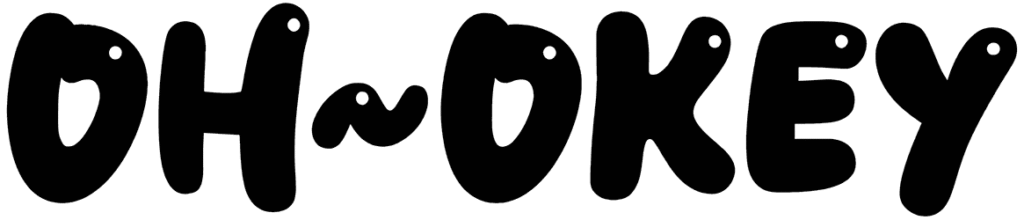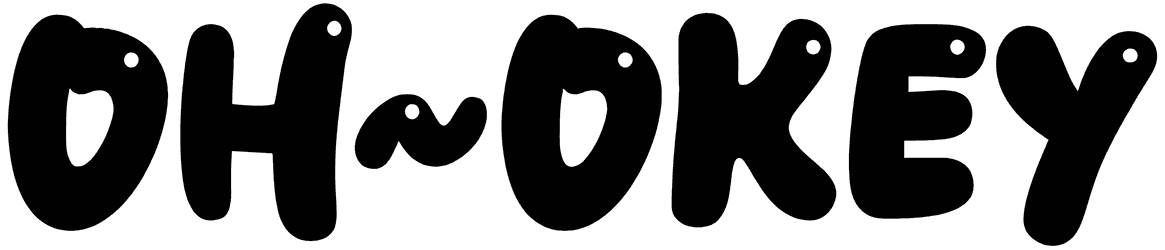
Oh Okey Font
When you are working on a playful layout, this bubble font with its soft and chubby form could be a cool pickup. The characters are funny, and they can make your layout, such as a kids’ party flyer, ravishing. As a cartoon font, the Oh Okey font will be a cool adornment for your words, even though it doesn’t support lowercase letters.